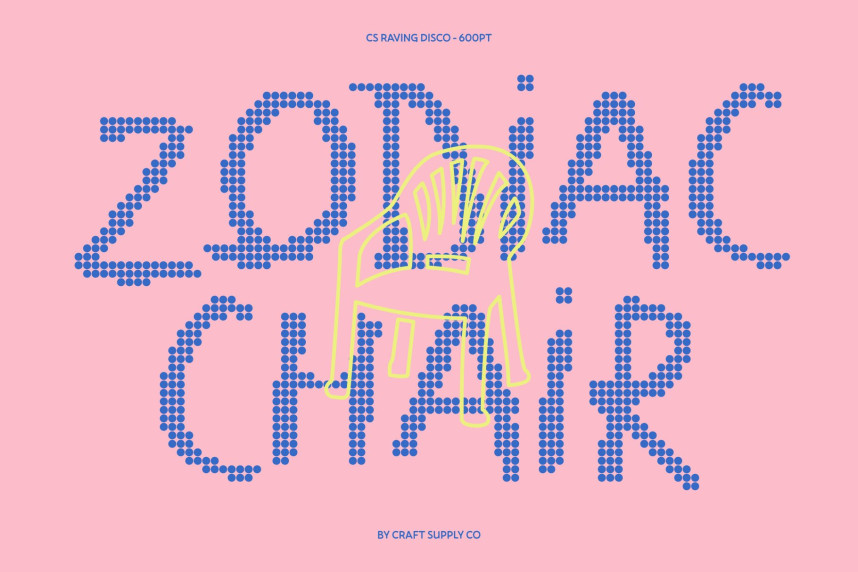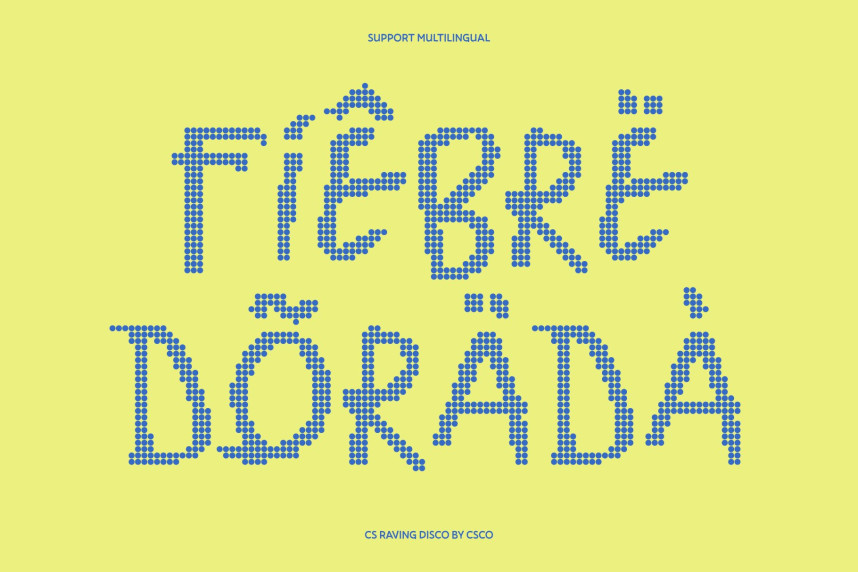
CS Raving Disco Font
CS Raving Disco Font – Messy Energy with Sparkling Playfulness Freely Scribbled Style with Disco Flair. This is a messy handwritten display font that captures the energy of irregular, freely scribbled strokes, enhanced with a lively disco-style dotted texture. Its gritty, spontaneous letterforms create a natural hand-drawn appearance, while the dotted sparkle adds a playful rhythm that makes the typography feel vibrant and full of life.